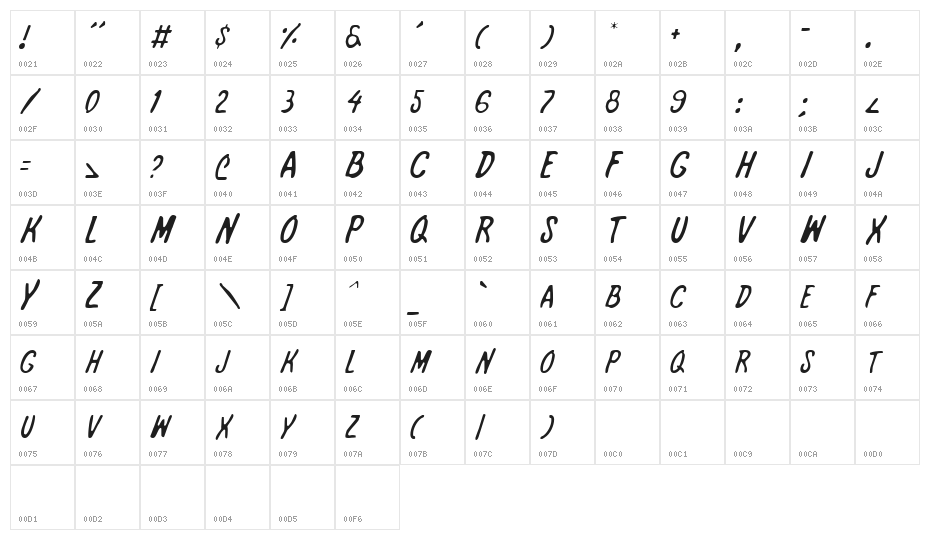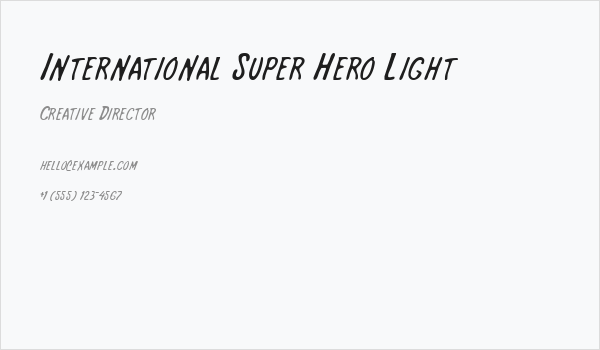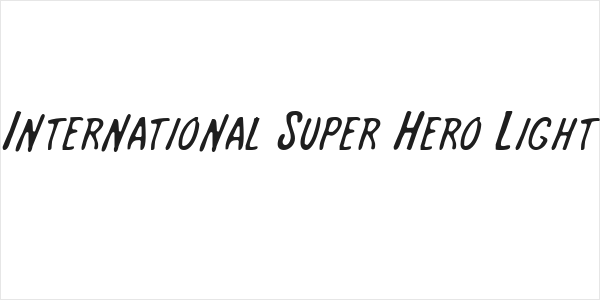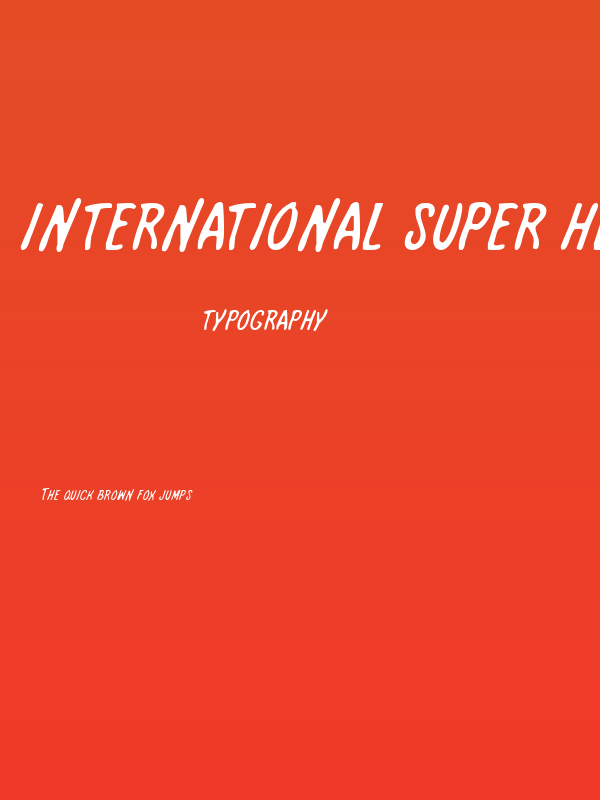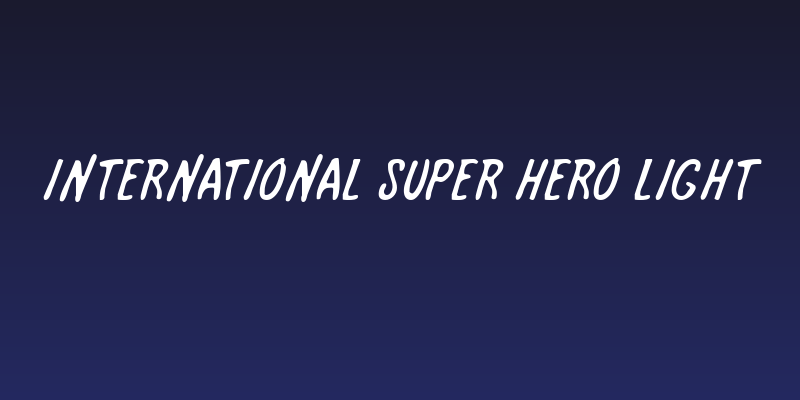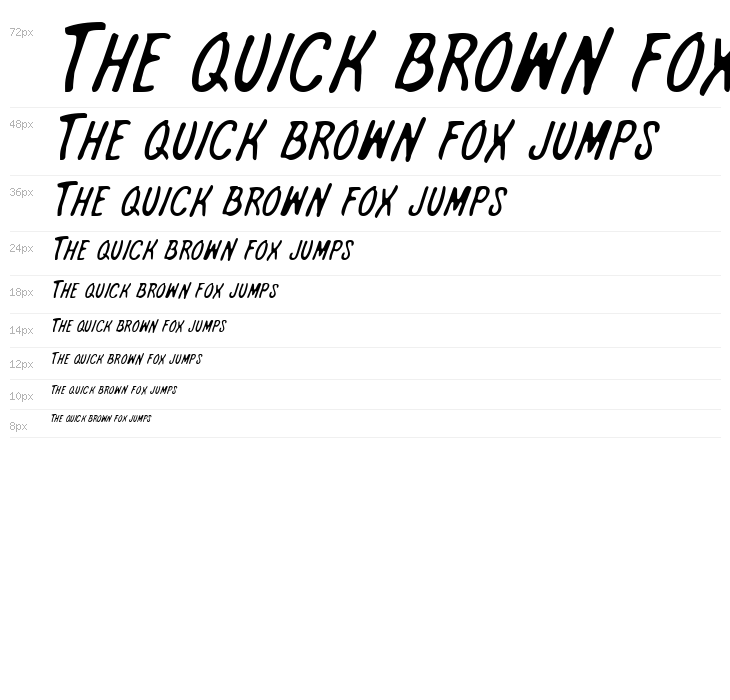
International Super Hero Light Font
International Super Hero Light Description
This font features a playful and dynamic style with a handwritten appearance. The letters are slightly slanted, giving them a sense of motion and energy. The strokes are bold and rounded, contributing to a friendly and approachable look. The uppercase and lowercase letters maintain a consistent style, with smooth curves and a casual flair. Numbers and special characters are designed to match the overall aesthetic, ensuring a cohesive appearance across all text elements. This font is ideal for projects that require a touch of personality and informality.
| Overall Style | Playful, Casual |
| Proposed Projects | Ideal for comic books, children's books, playful branding, and casual invitations. |